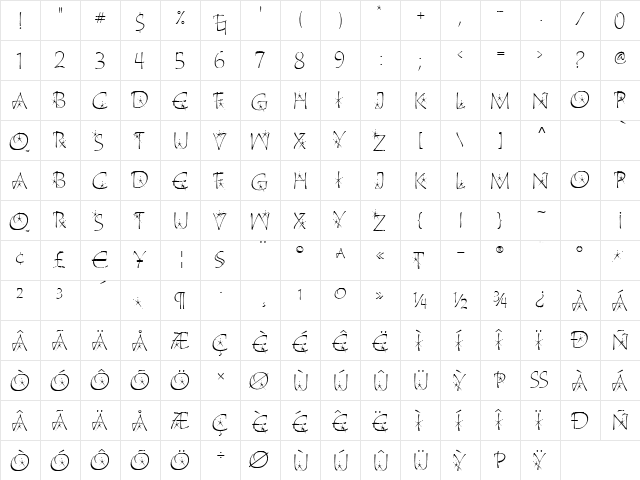
Katytude Star Alternates Regular
Design Context for Katytude Star Alternates Typeface
Katytude Star Alternates is a composed and adaptable typeface that performs quietly and consistently across a wide range of design contexts.